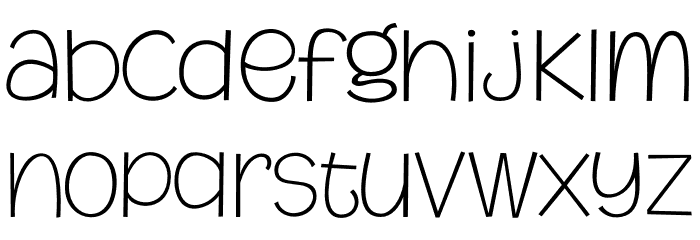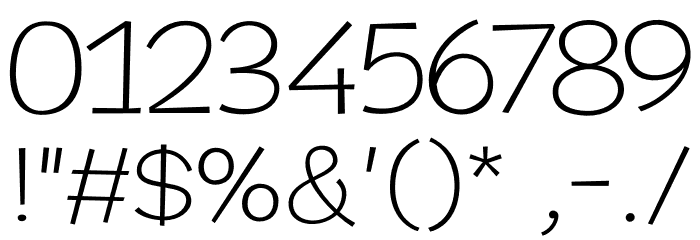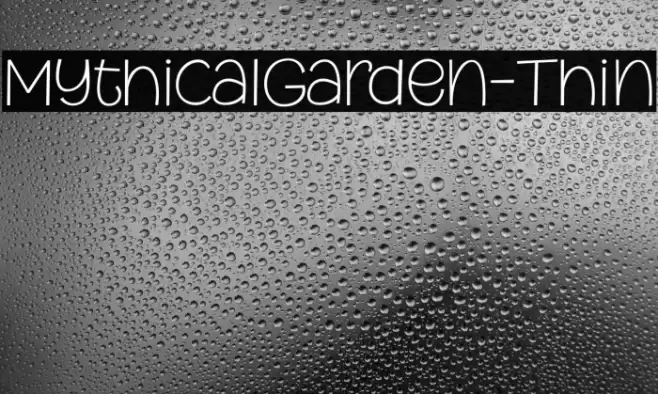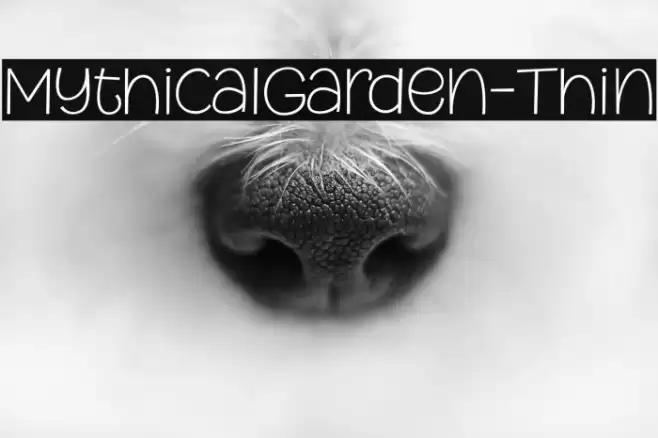
MythicalGarden-Thin Font
This font features a whimsical and playful design with thin, elongated letterforms that give it a light and airy feel. The characters are slightly rounded with a consistent stroke width, creating a harmonious and friendly appearance. The uppercase letters are tall and narrow, while the lowercase letters maintain a similar style with a touch of uniqueness in their curves. The numerals are clear and easy to read, matching the overall aesthetic. Special characters are designed with the same playful touch, making this font suitable for creative and informal projects.
A whimsical, thin font with playful, elongated letterforms and consistent stroke width.
- Font: MythicalGarden-Thin
- Proposed Projects: Ideal for children's books, greeting cards, playful branding, and creative posters.
- Overall Style: Playful
- Use Case: Headlines, Logos, Creative projects